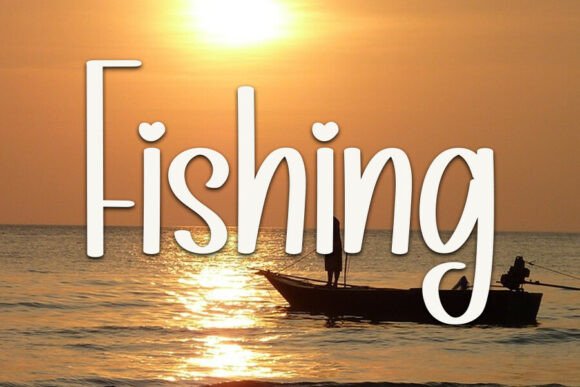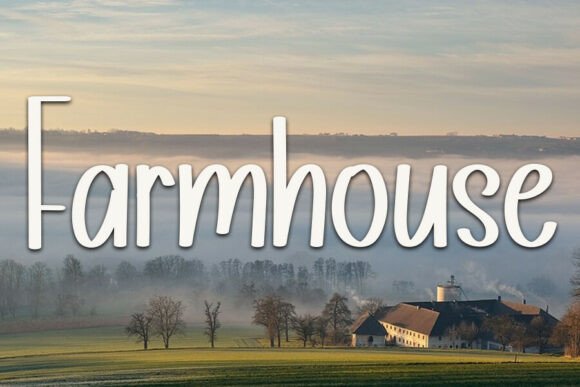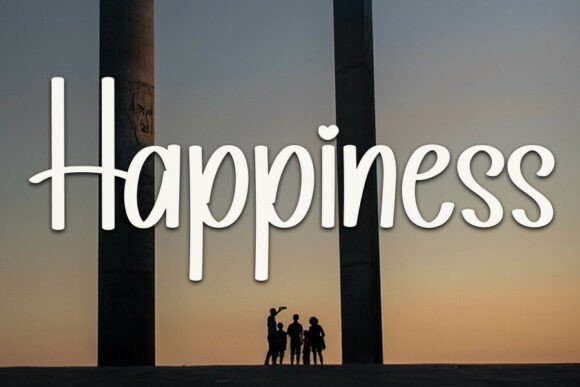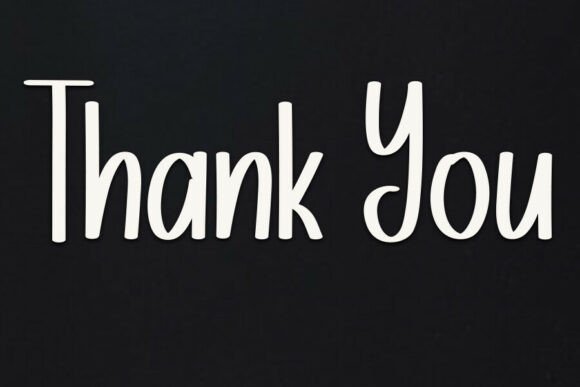
Discover the Charm of Healing Font: Elevate Your Designs with a Friendly and Casual Touch
In the world of typography, fonts play a crucial role in conveying the tone and personality of a design. For designers and crafters looking to add a touch of warmth and friendliness to their projects, the Healing Font is an excellent choice. This beautiful, handwritten font is designed to bring a sense of approachability and charm to various designs, making it perfect for bakery branding, food blogs, birthday invites, and more.
The Characteristics of Healing Font
Healing Font is a tall, sweet handwritten font that exudes a friendly and casual feel. Its elegant strokes and rounded edges give it a soft, inviting appearance that can instantly elevate the aesthetic of any design. The font’s friendly demeanor makes it an ideal choice for designers who want to create a connection with their audience and convey a sense of approachability.
Ideal Uses for Healing Font
Healing Font is incredibly versatile and can be used in a variety of design projects, including:
- Bakery Branding: Add a touch of warmth and coziness to your bakery’s branding with Healing Font. Its friendly and inviting appearance makes it perfect for logos, packaging, and marketing materials.
- Food Blogs: Give your food blog a personal touch with Healing Font. Its elegant and cursive strokes make it ideal for headings, titles, and descriptions.
- Birthday Invites: Create charming and personalized birthday invites with Healing Font. Its playful and whimsical feel makes it perfect for kids’ parties and adult celebrations alike.
- Any Design that Needs a Personal Touch: Healing Font can add a touch of personality to any design project, from social media graphics to print materials.
What Makes Healing Font Special?
Healing Font comes with several features that make it a standout choice for designers and crafters:
- Stylistic Features: The font comes with a range of stylistic features, including swashes, ligatures, and alternates, which can be used to add a touch of elegance and sophistication to designs.
- Handcrafted Touch: Healing Font has a distinctly handcrafted feel, making it perfect for designers who want to add a personal touch to their projects.
Tips for Using Healing Font Effectively
To get the most out of Healing Font, here are a few tips to keep in mind:
- Pair it with Other Fonts: Healing Font can be paired with other fonts to create a unique and visually appealing combination. Try pairing it with a sans-serif font for a modern look or a serif font for a more traditional feel.
- Experiment with Colors: Healing Font looks great in a range of colors, from soft pastels to rich jewel tones. Experiment with different colors to find the perfect combination for your design.
- Use it to Add Emphasis: Healing Font can be used to add emphasis to certain elements of a design, such as headings or titles. Use it to draw attention to key information or create a visual hierarchy.
Healing Font is a beautiful, handwritten font that can add a touch of warmth and friendliness to any design project. Its elegant strokes, rounded edges, and friendly demeanor make it perfect for bakery branding, food blogs, birthday invites, and more. With its PUA encoding, stylistic features, and handcrafted touch, Healing Font is an excellent choice for designers and crafters looking to elevate their designs and create a lasting impression.